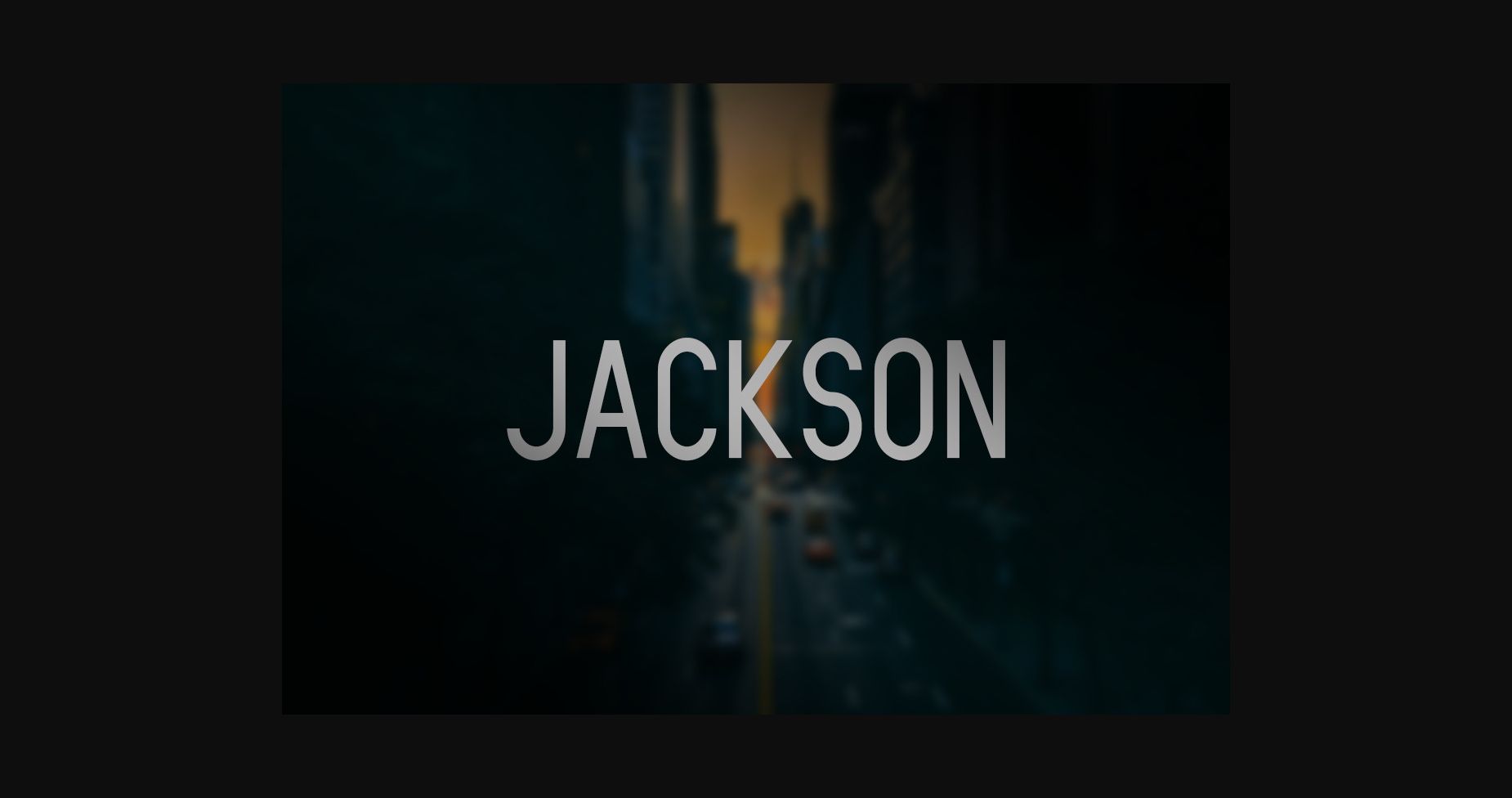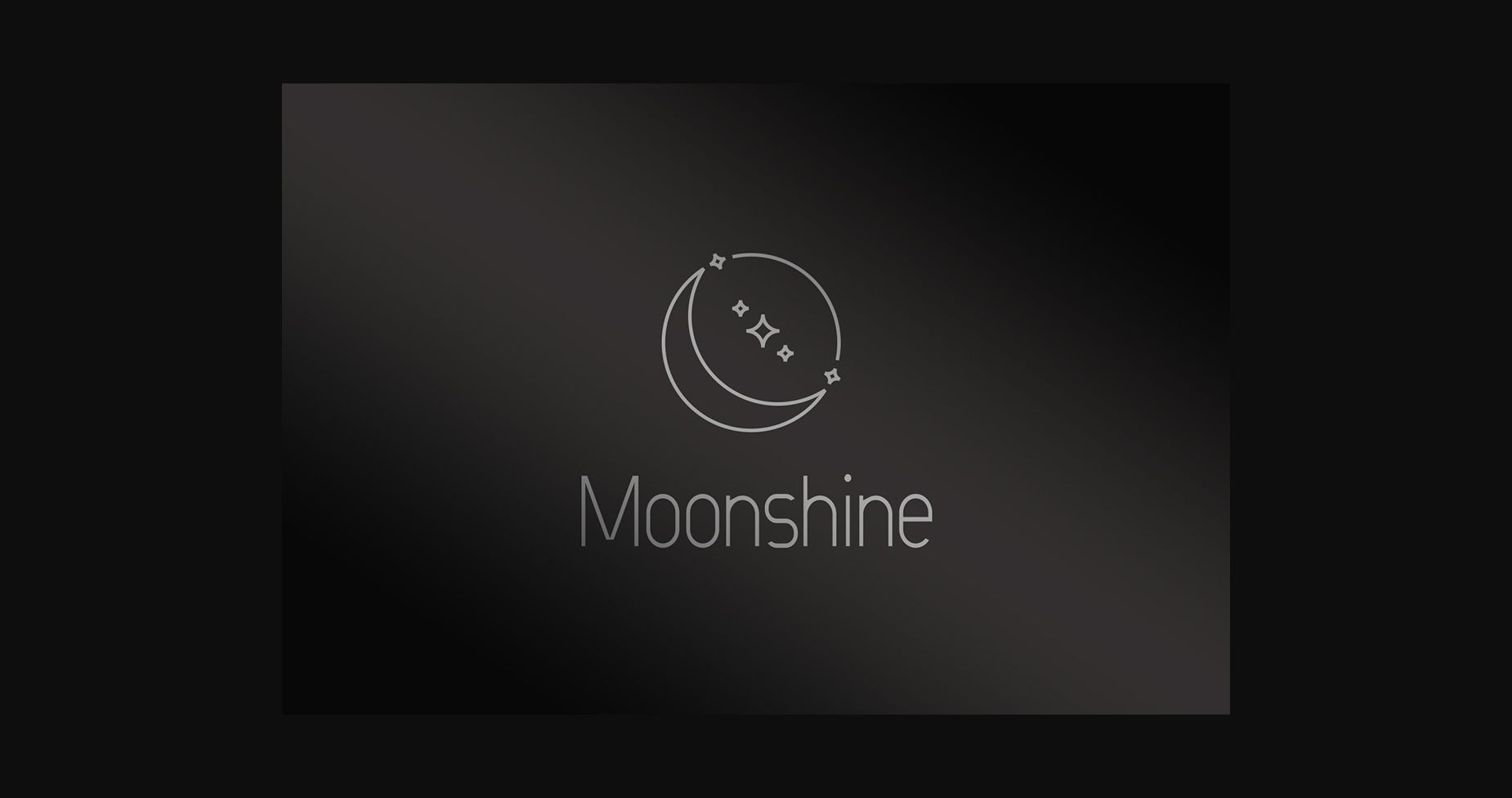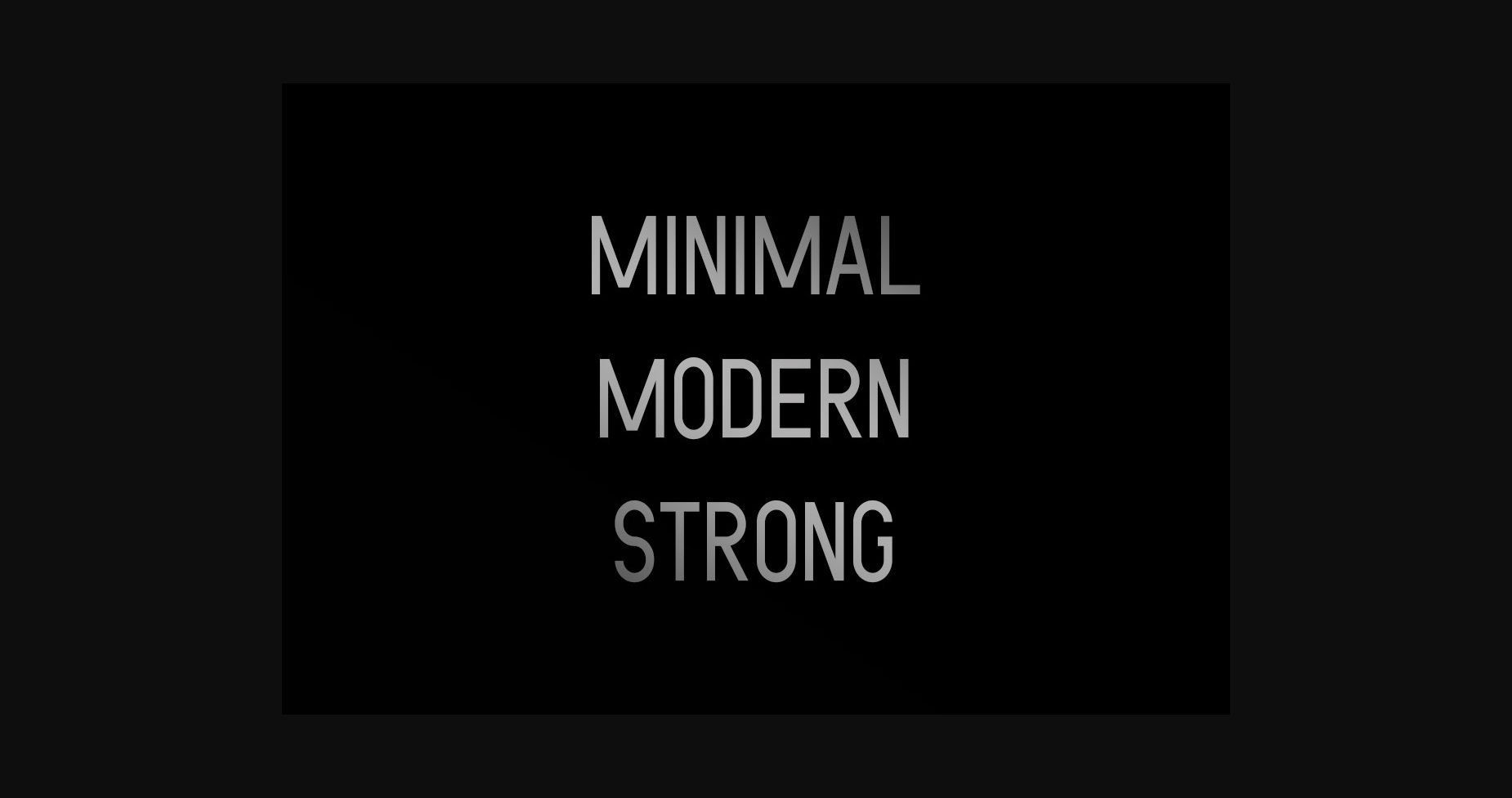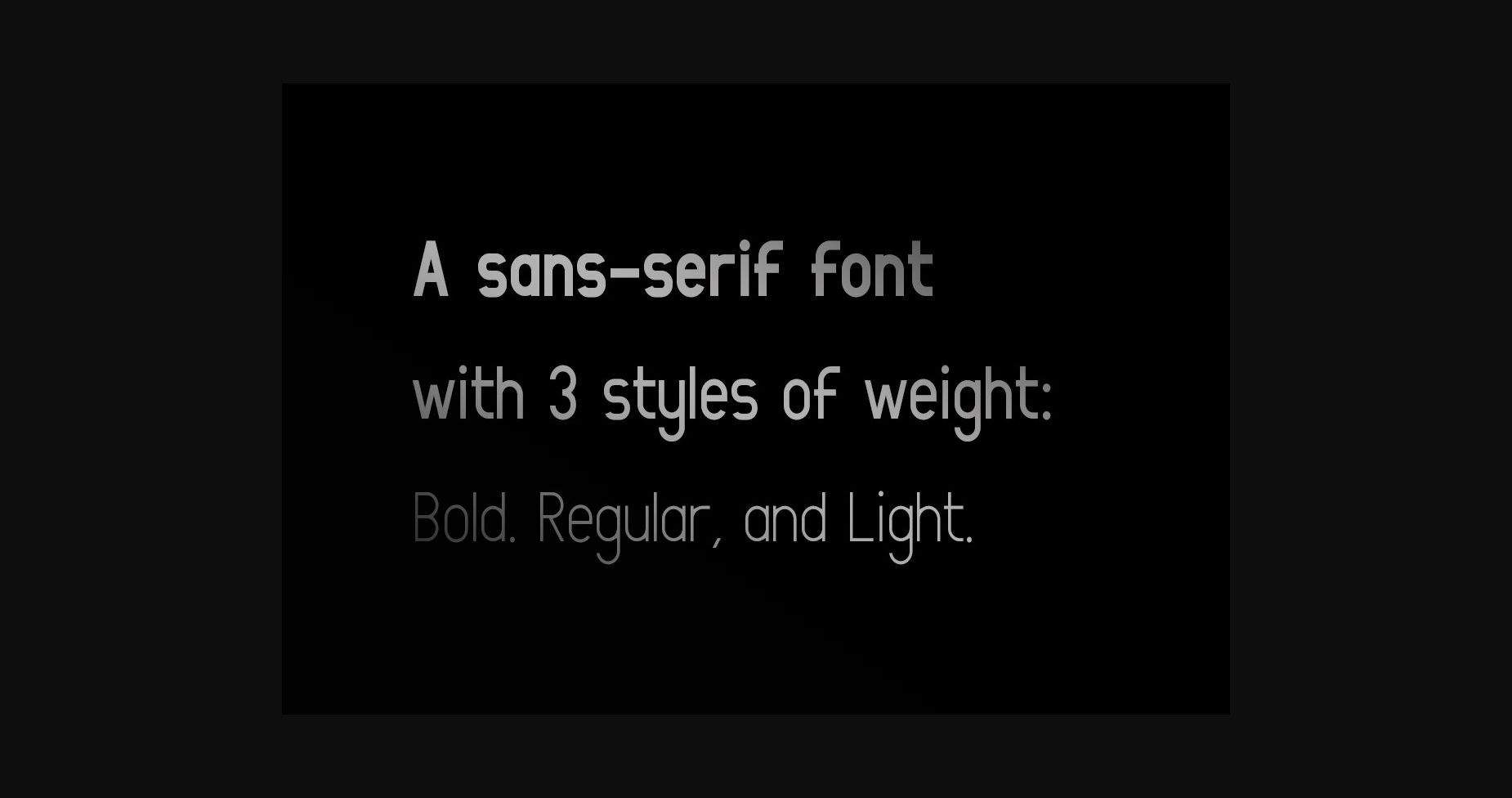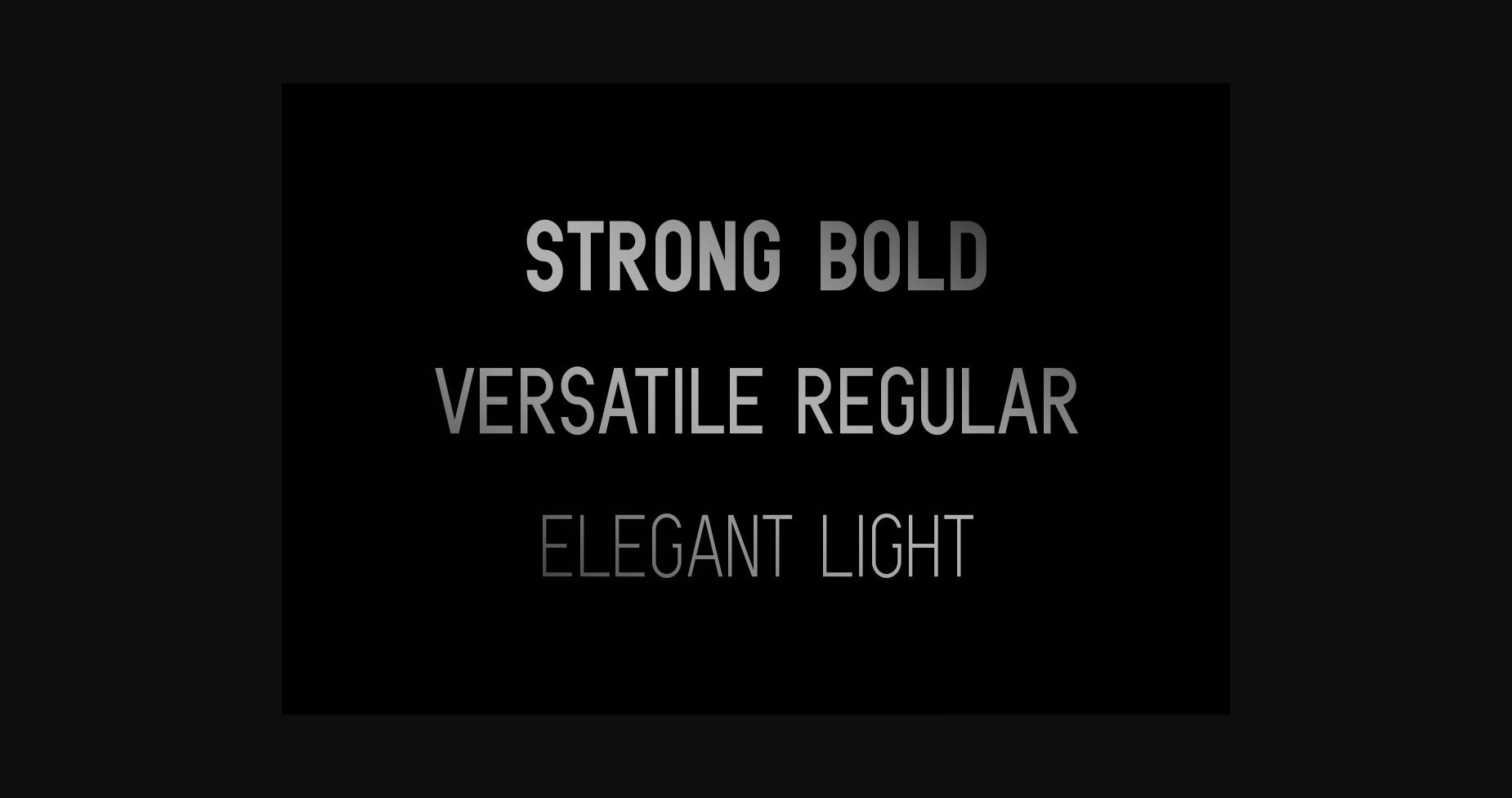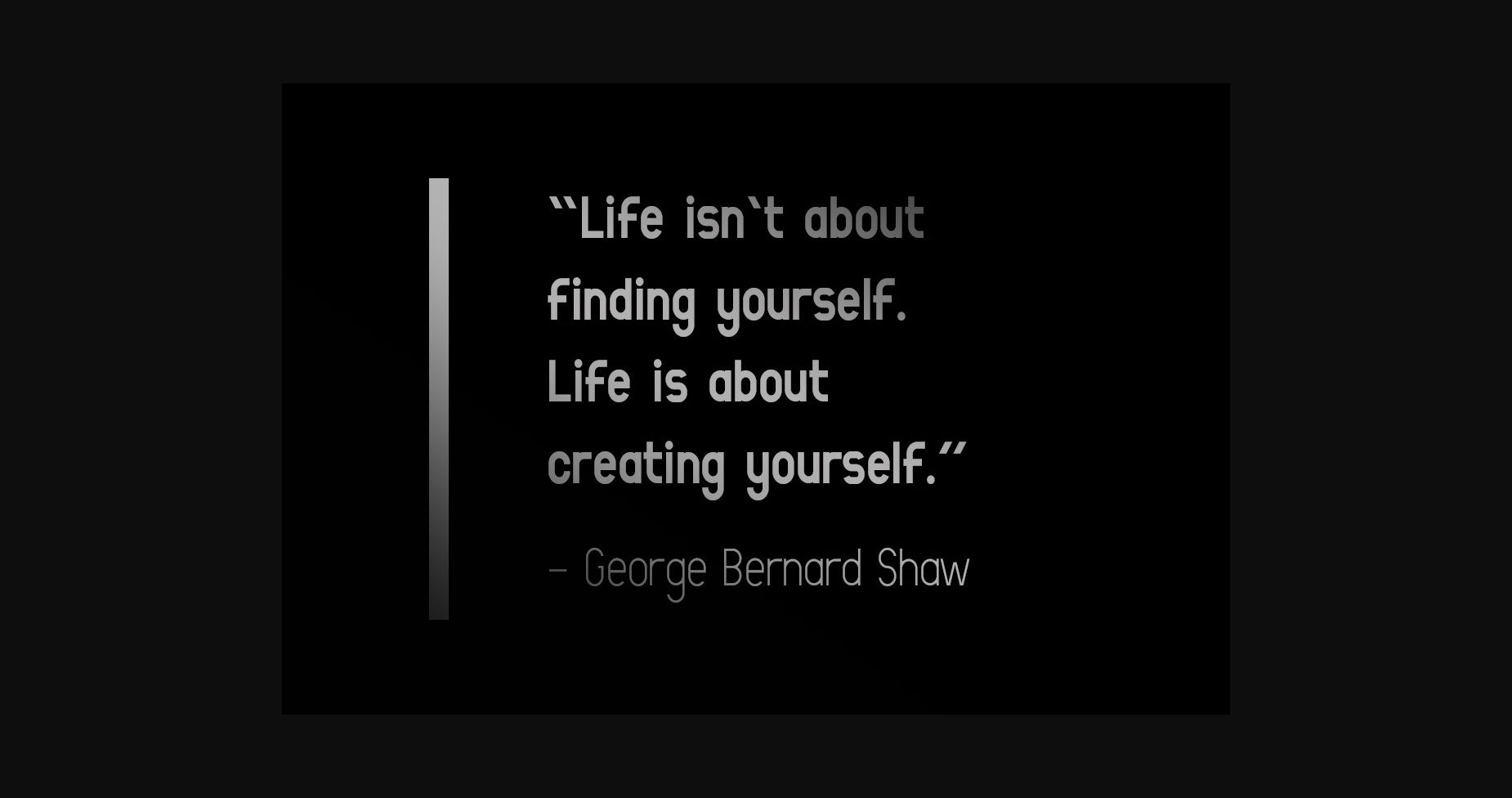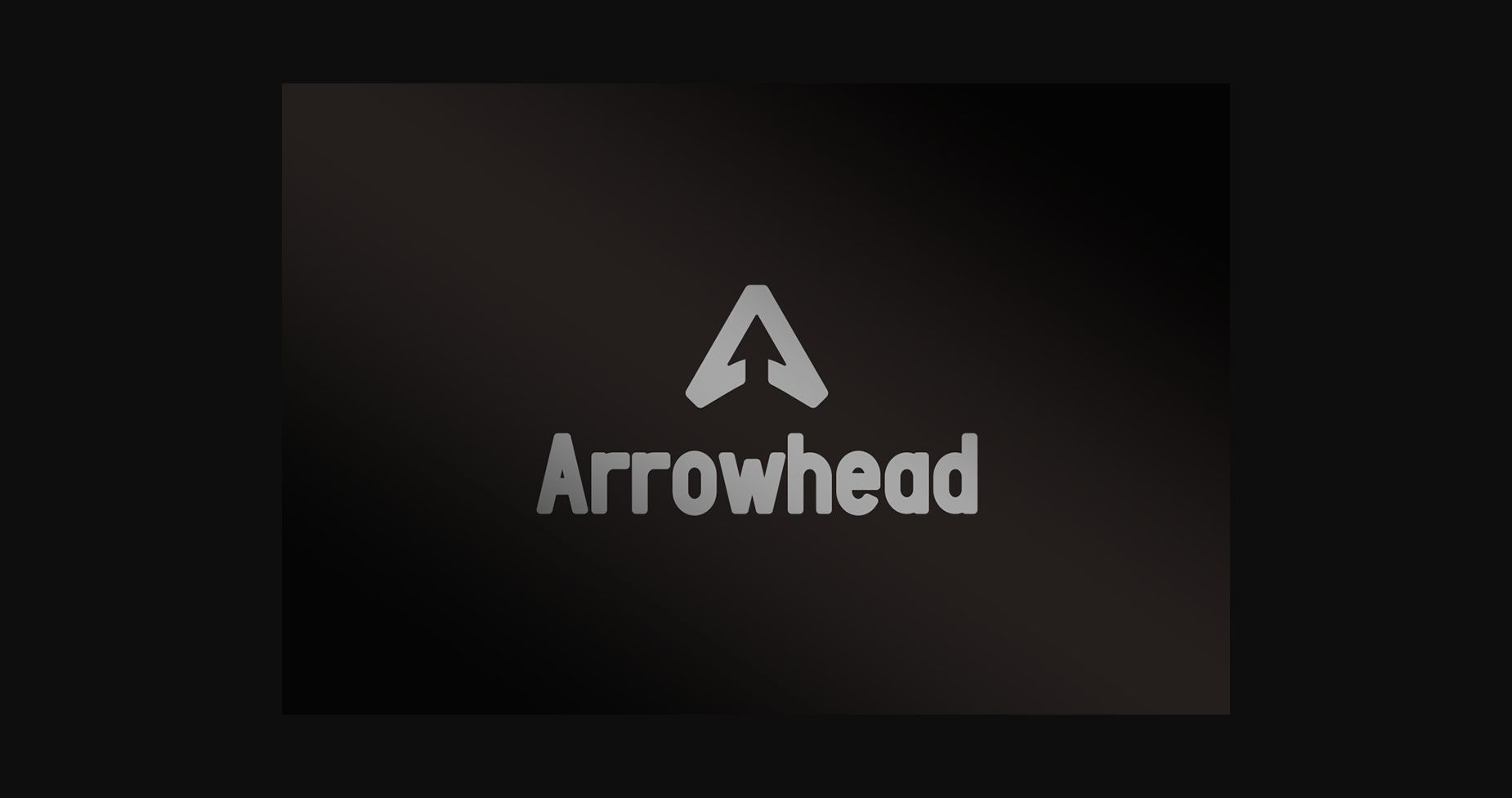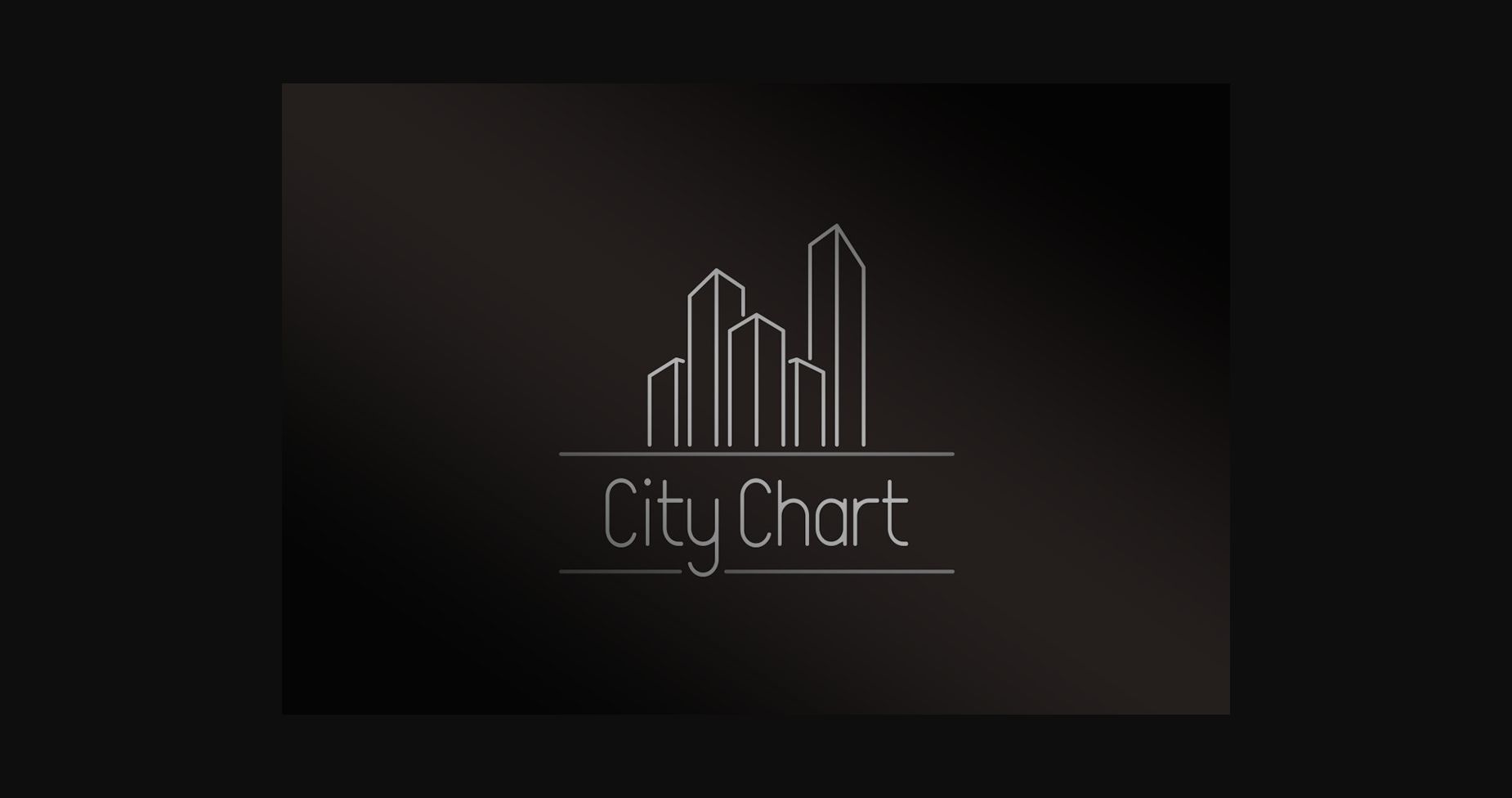
Jackson is a cool and simple sans serif font. It can easily be matched to an incredibly large set of projects, so add it to your creative ideas and notice how it makes them stand out!